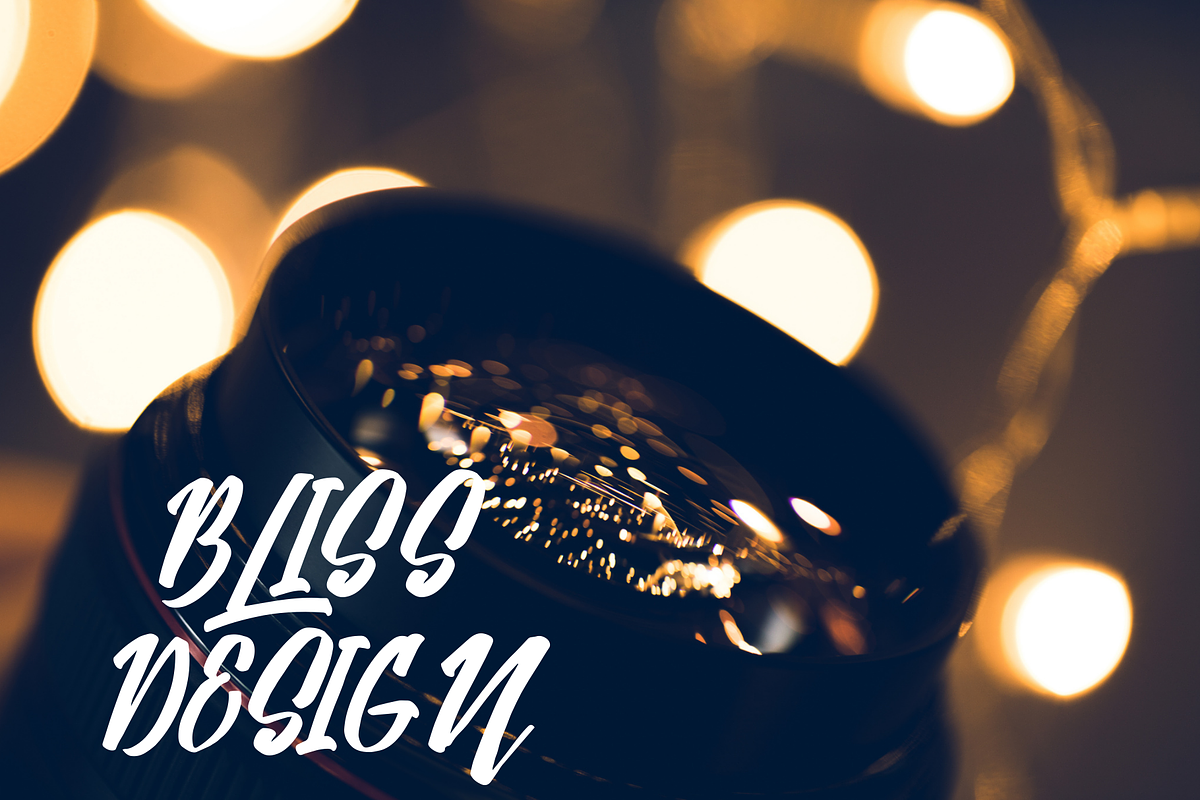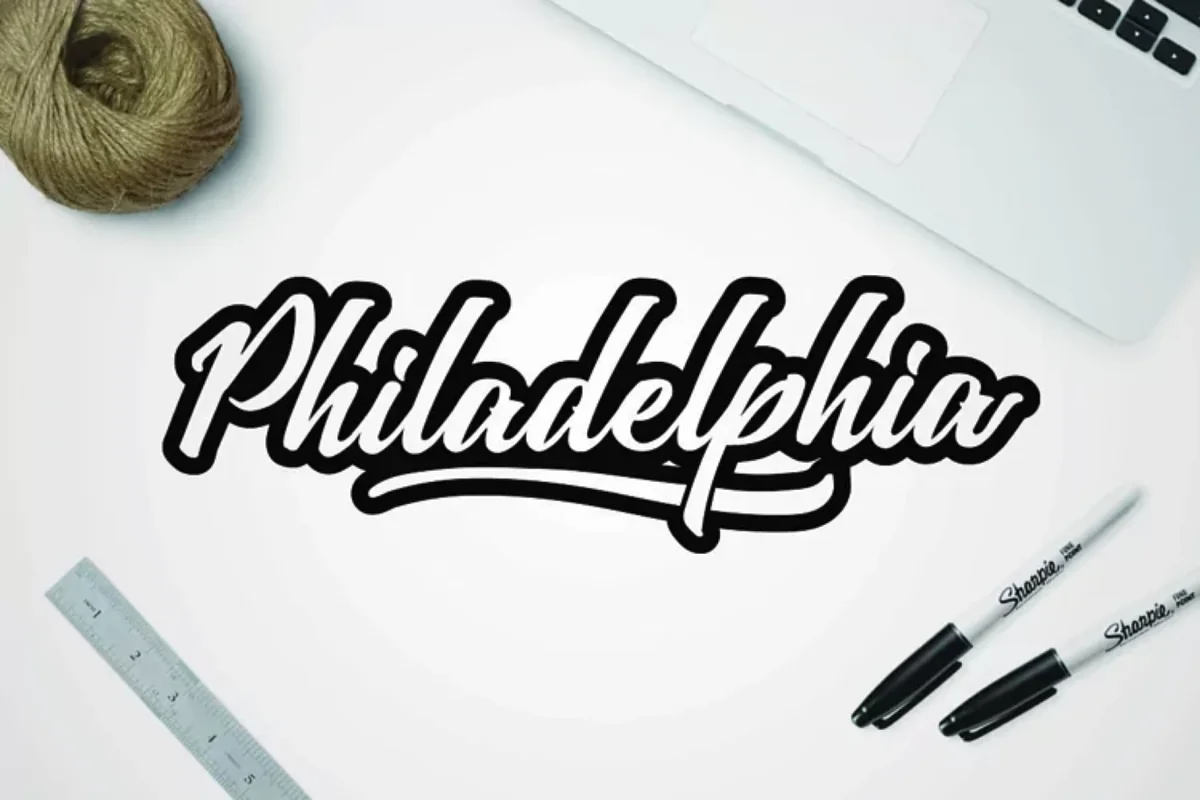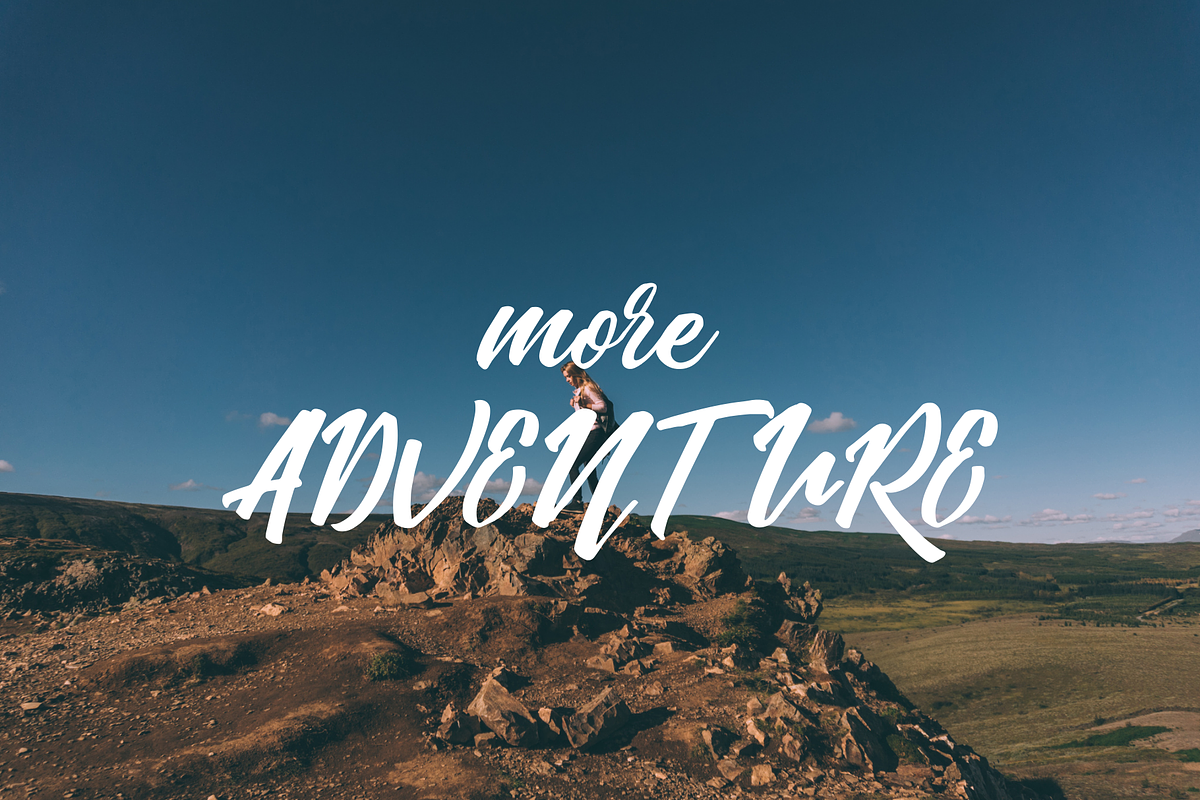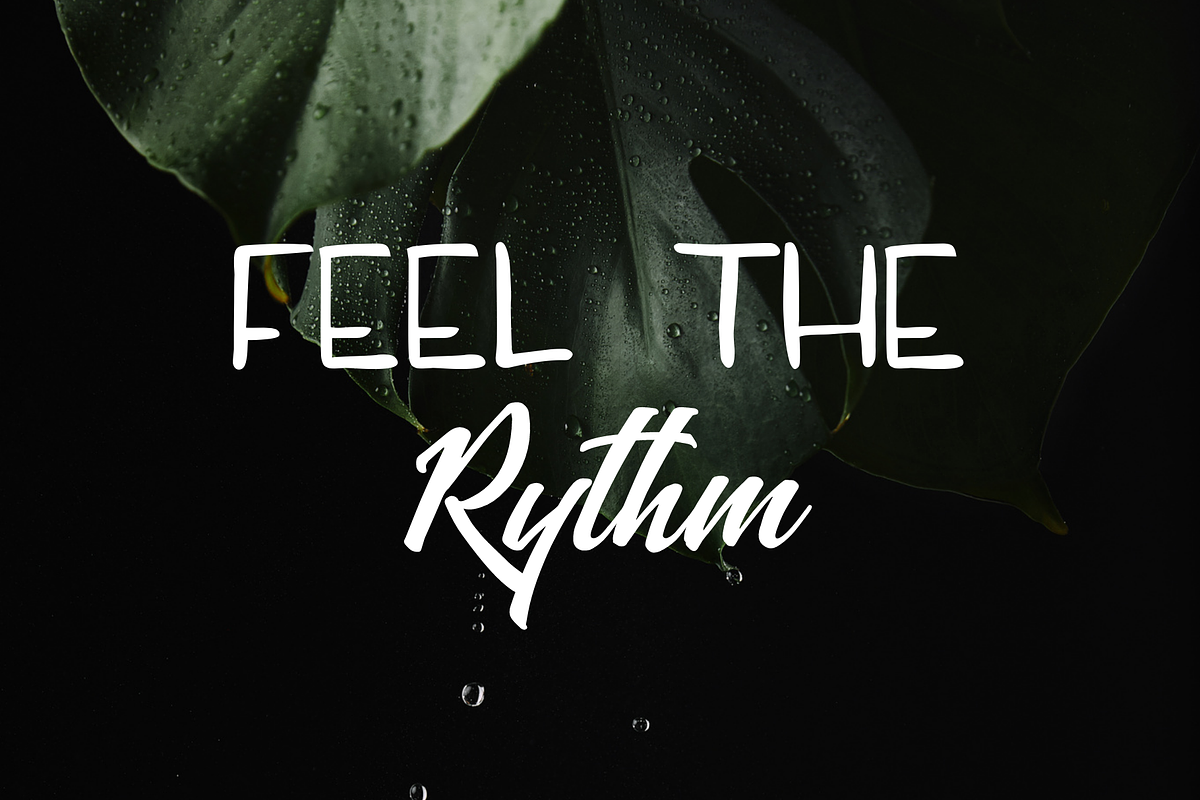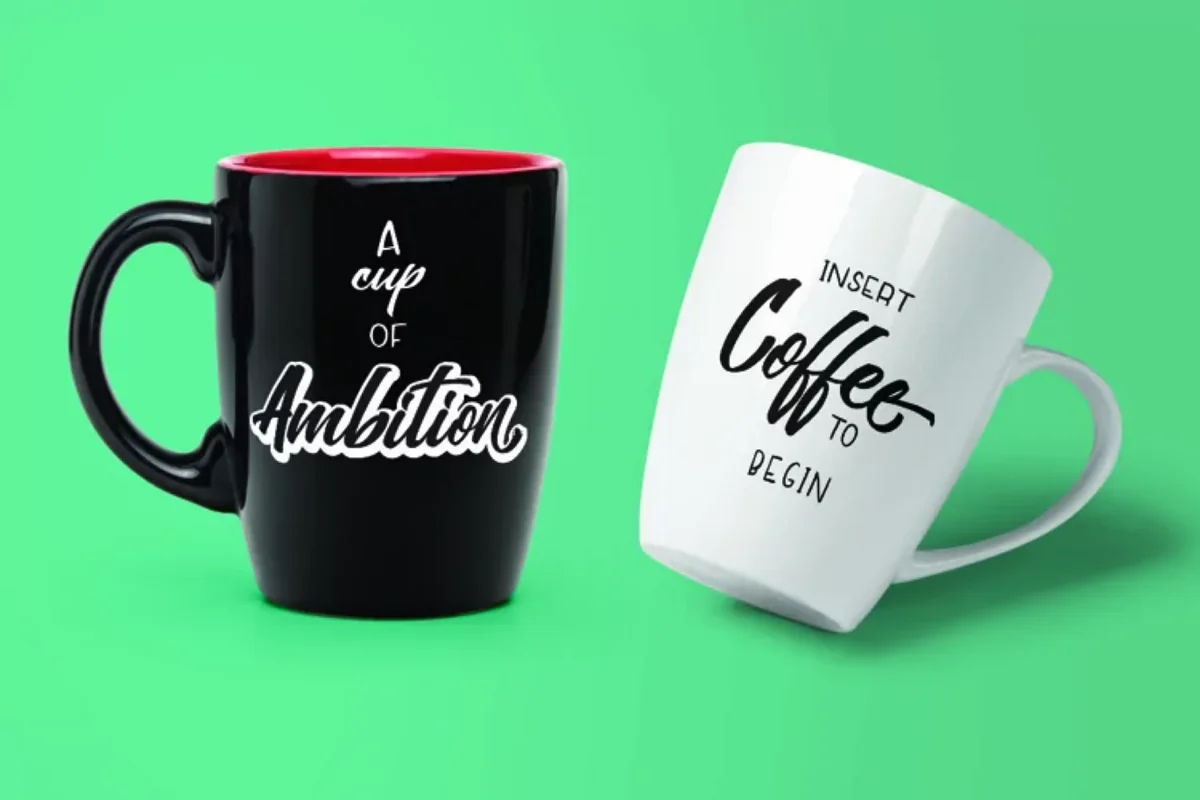
Absolute Duo Extra
Absolute Font with Extra Introducing a duo of hand-scripted fonts, carefully designed to work together in harmony for creating masterful typographic designs in a flash! Included in the pack is 26 additional marker swashes and dot in font form for you to add authenticity to your designs This font is suitable for any design, or for something masculine. as the author honestly we really like texture in this font that looked a little different, we do not have to edit it again in Photoshop to get the texture brush. This font are support for Multilanguage, and there is also ligature, contextual alternate and terminal for some letters. But for the extra font there come just the uppercase only.